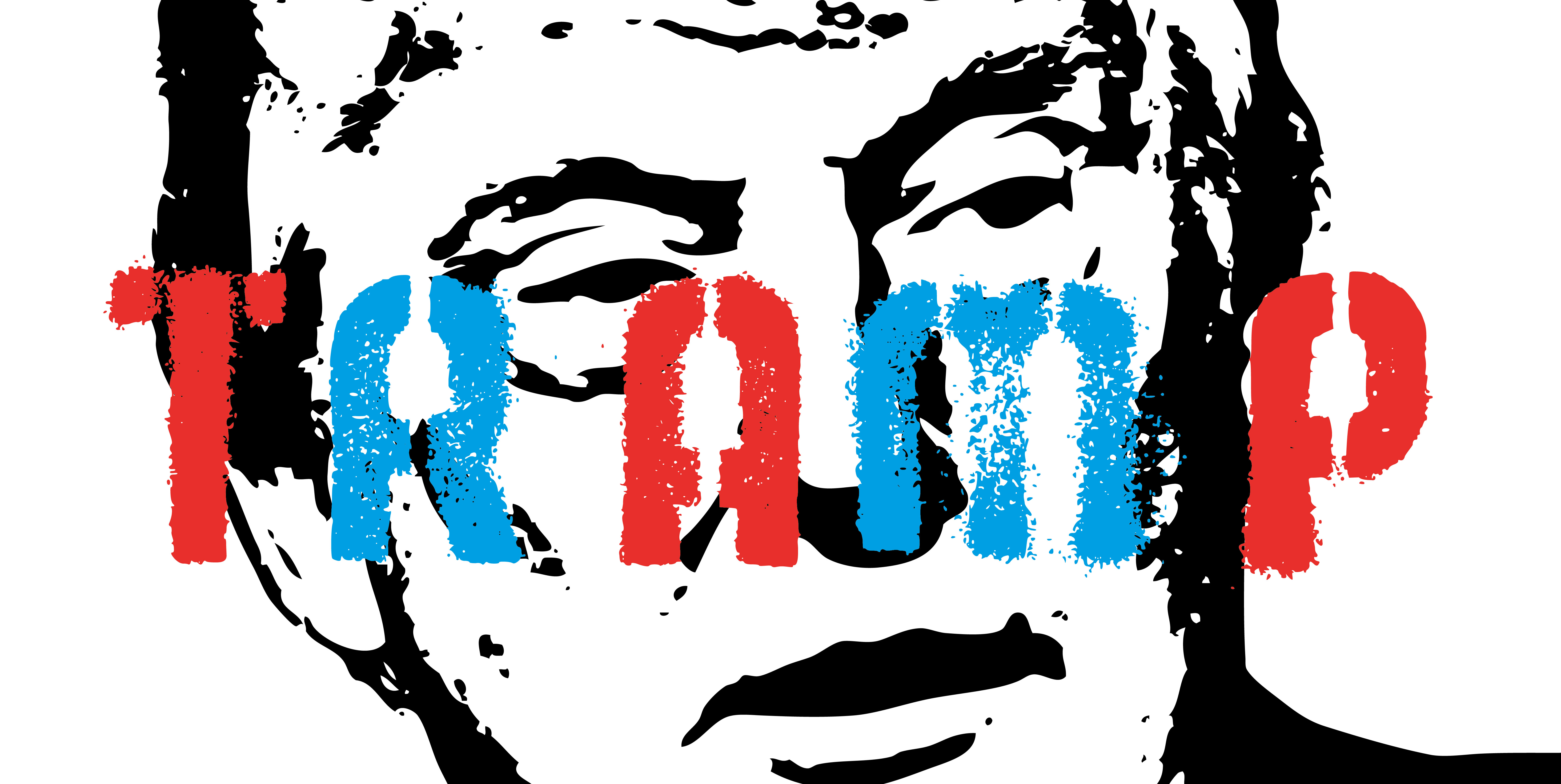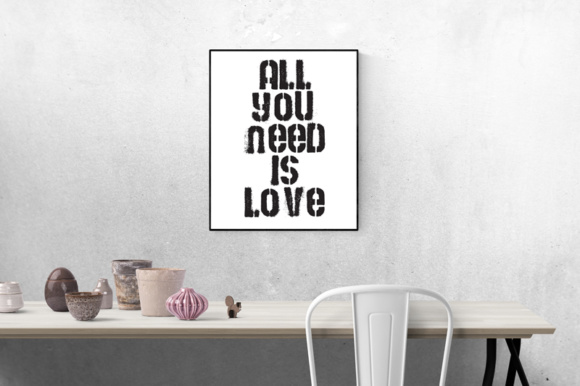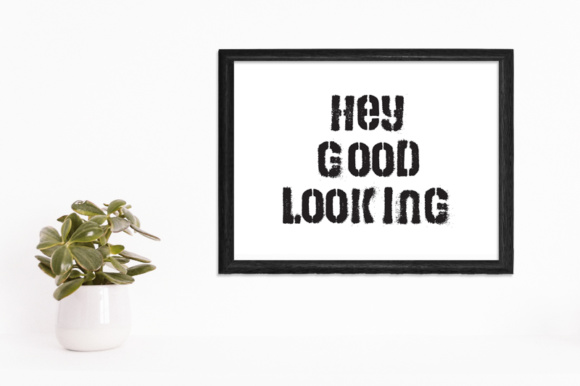
Introduction to Bams Stencil Font
Have you ever been in the middle of a creative project, and suddenly, the perfect font pops into your mind? That’s exactly what happened to many designers when they stumbled upon the Bams Stencil Font. Its unique, edgy design makes it a game-changer for any project that requires a bold statement.
The Bams Stencil Font is not just another font; it’s a design resource that’s already cut and sprayed, making it easy to use without any hassle. Whether you’re a budding artist or a seasoned designer, this font is sure to elevate your work and leave a lasting impact. With its high-quality design and transparent background, you can easily customize it to fit your needs.
Key Features of Bams Stencil Font
- High-quality, bold font perfect for creative projects and designs
- Includes a transparent background for easy layering and customization
- Designed to be highly legible at various resolutions and sizes, making it ideal for both digital and print projects
- Unique stencil design adds a touch of industrial chic to any creative project
Honest Review: Bams Stencil Font
I recently stumbled upon the Bams Stencil Font and was excited to dive in and see what it had to offer. As a designer, I’m always on the lookout for new and interesting design resources to add to my toolkit.
The font itself is a great addition to any creative project. It’s a high-quality, bold font that can add a lot of personality to your designs. I particularly love the way it looks on a transparent background, which adds an extra layer of depth and visual interest.
- Easy to use and customize
- Great for adding personality to your designs
Bams Stencil Font is a versatile design resource that can be used in a variety of creative projects, including posters, flyers, brochures, and social media graphics. It’s also a great resource for designers who want to add a unique touch to their designs.